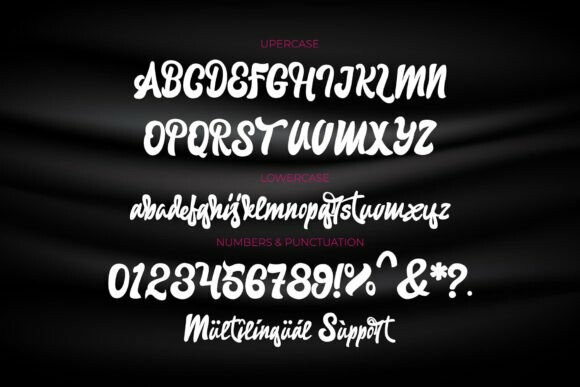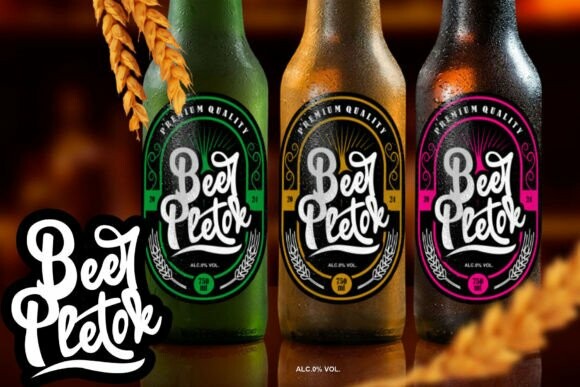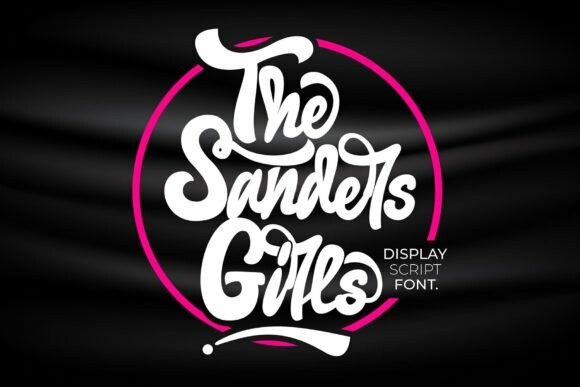
The Sanders Girls Font
The Sanders Girls Font – an alluring script font adorned with delightful swashes and savvy alternates. Let its elegance and whimsy elevate your designs, from wedding invites to greeting cards, logos to branding projects. “The Sanders Girls” enchants with its bewitching curves and ornate accents, infusing warmth and character into your creations. Whether you’re manifesting an emotion-filled message or dreaming up a fanciful logo, “The Sanders Girls” enriches your projects with a sublime, handcrafted touch.